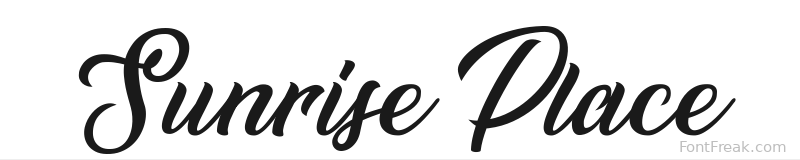
Sunrise Place
Sunrise Place is an elegant script font designed by Billy Argel Fonts, perfect for those seeking a touch of sophistication and warmth in their typography. This beautifully crafted typeface showcases a fluid, handwritten style that exudes charm and personality. With its moderate stroke weight and graceful curves, Sunrise Place strikes a balance between legibility and artistic flair, making it a versatile choice for various creative projects.
Visually, the font features a smooth contrast between thick and thin strokes, enhancing its organic feel. The generous spacing allows for easy readability, while the decorative elements, such as the gentle swirls and connecting ligatures, add an inviting character to the text. These aesthetic qualities make Sunrise Place an excellent choice for applications where a personal touch is essential.
The best use cases for Sunrise Place include wedding invitations, where its romantic flair can set the tone for the celebration. It's also ideal for branding small businesses, particularly those in the hospitality or lifestyle sectors, such as cafés and boutiques. Additionally, this font can enhance movie posters by adding an artistic element that captures the viewer's attention. Content creators looking to elevate their social media graphics will find Sunrise Place particularly appealing for promotional posts and captions.
Targeted towards graphic designers, small business owners, and content creators, Sunrise Place offers a unique combination of elegance and versatility. The Sunrise Place font free download ensures that anyone can explore its potential without financial constraints. What sets this font apart is its ability to convey warmth and creativity, making it a standout choice for projects that require both style and substance. Whether for digital or print applications, Sunrise Place is sure to leave a lasting impression.